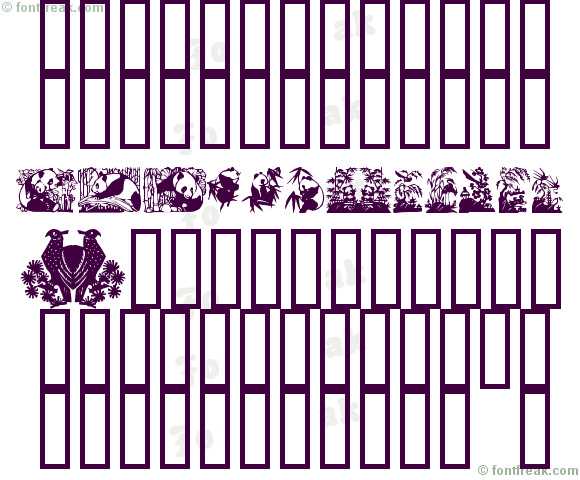
Panda
About Panda
The Panda font, created by Listemageren in 1998, is a whimsical display typeface that captures the charm and playfulness associated with its namesake animal. This decorative font showcases a unique blend of bold strokes and intricate detailing, making it a standout choice for various creative projects. Its stroke weight is substantial, contributing to a strong visual presence, while the contrast between thick and thin lines adds a dynamic feel. The spacing is generous, allowing each character to breathe, which enhances readability even in more complex layouts.
The Panda font is particularly well-suited for projects that require a touch of fun and creativity. It shines in applications such as children's book covers, playful event invitations, and vibrant restaurant menus. Its whimsical nature makes it an excellent choice for branding materials aimed at a younger audience or products that emphasize a lighthearted theme. Moreover, it can be effectively used in social media graphics and marketing campaigns to capture attention and convey a sense of friendliness.
What sets the Panda font apart is its enchanting ability to evoke joy and nostalgia. It invites users to explore a world of imagination, making it an invaluable addition to any designer's toolkit. With the Panda font free download available, you can easily incorporate this delightful typeface into your next project, allowing you to create designs that are both visually appealing and memorable.